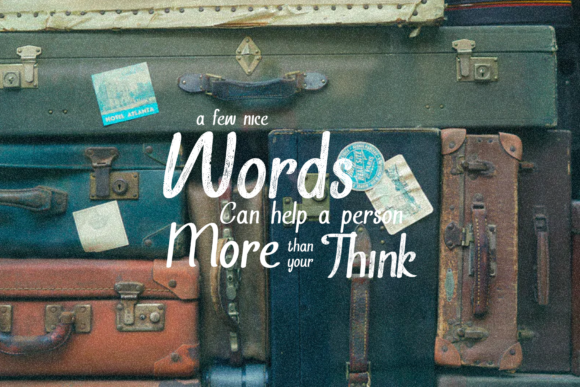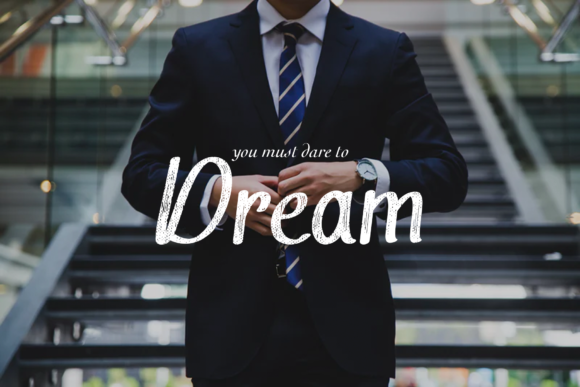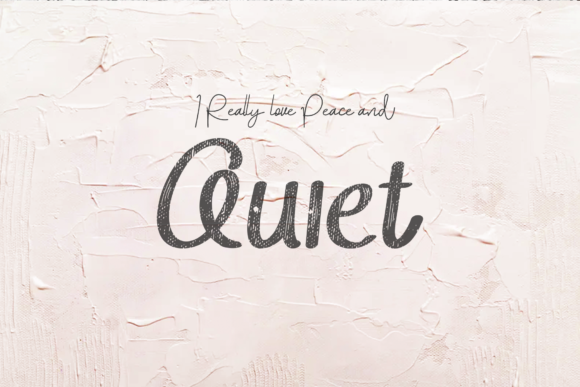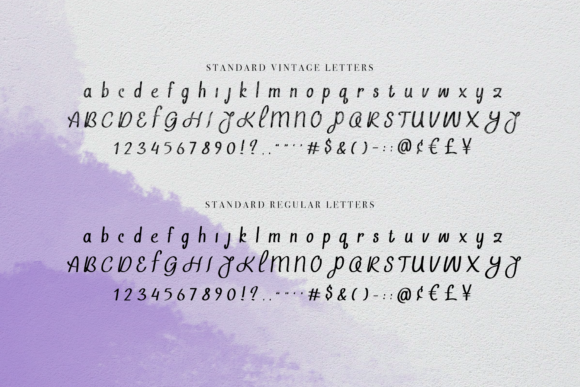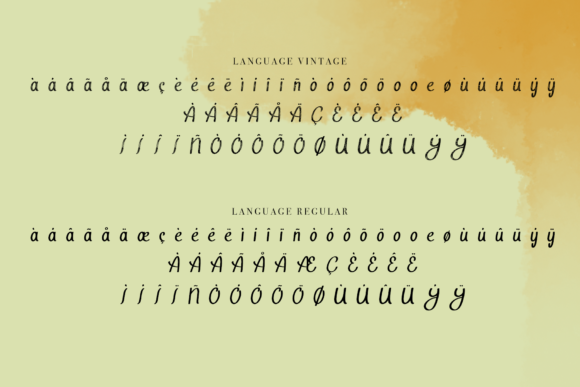
The Goyoh Font: A Design Game-Changer
I’ll never forget the struggle I faced while working on a branding project for a trendy coffee shop. My client wanted a font that was both modern and unique, but I was stuck with the usual suspects – Arial, Helvetica, and Times New Roman. That’s when I stumbled upon the Goyoh font, and it changed the game. In this article, I’ll share my experience with Goyoh, its features, and how to make the most of it in your designs.
An Honest Review of Goyoh
- ✨ Unique and stunning look that’s sure to grab attention
- ✅ Masterfully designed with a keen eye for detail
- 💼 Perfect for logos, branding, packaging design, and more
- 🎨 Highly versatile and adaptable to different design styles
While Goyoh is an amazing font, it’s not perfect. Here are a few things to keep in mind:
- 🤔 May not be suitable for body text due to its display font nature
- ⚠️ Limited availability of certain characters or glyphs
The Backstory of Goyoh
Goyoh was designed by a team of creatives who wanted to push the boundaries of typography. Inspired by traditional Japanese art and modern design trends, they crafted a font that’s both unique and functional. The result is a stunning display font that’s perfect for designers, crafters, and creative hobbyists.
Q: What is the Goyoh font best used for?
A: Goyoh is best used for display text, such as logos, branding, packaging design, and headlines.
Q: Can I use Goyoh for body text?
A: While Goyoh is a beautiful font, it’s not recommended for body text due to its display font nature. It’s best used for headlines and titles.